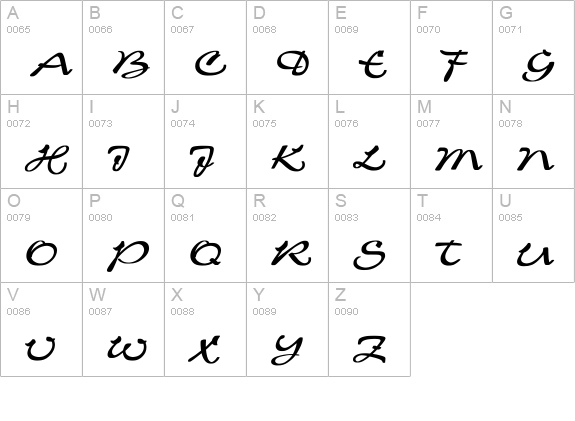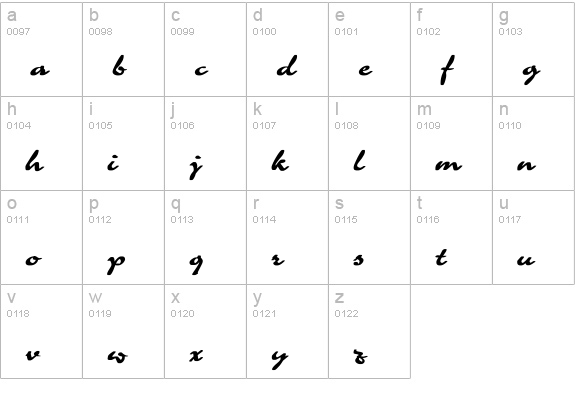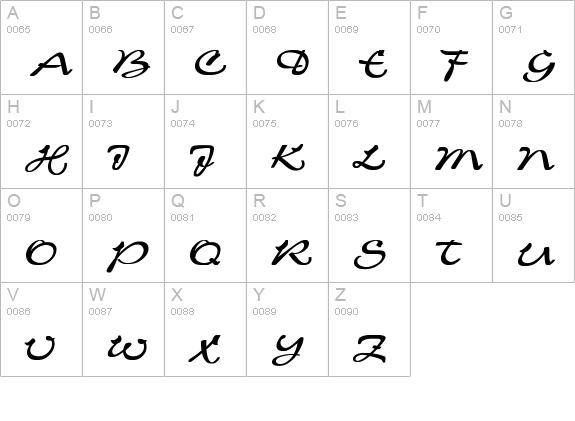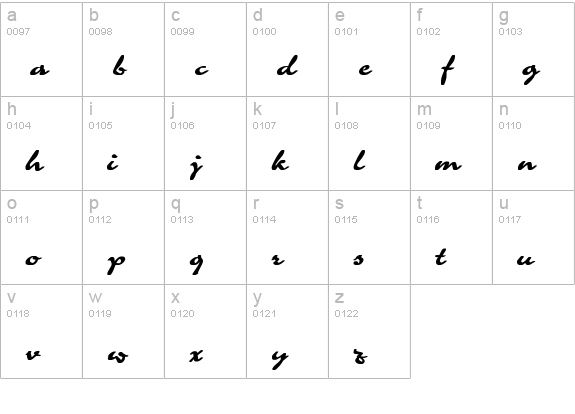
Charme Bold is a strong, high-contrast variant in the Charme typeface family \xE2\x80\x94 well suited to headlines, attention-grabbing titles, and strong calls-to-action.
Charme Bold font is a versatile and elegant typeface that exudes sophistication and charm. Its bold and striking design makes it perfect for headlines, titles, and branding projects. With its clean lines and modern look, Charme Bold font is sure to make a statement in any design. Best of all, Charme Bold font is completely free to download at FontsMarket.com. Whether you're a professional designer looking to add a touch of elegance to your projects or a student working on a creative assignment, Charme Bold font is the perfect choice. Download it today and elevate your designs with this stylish and eye-catching typeface.